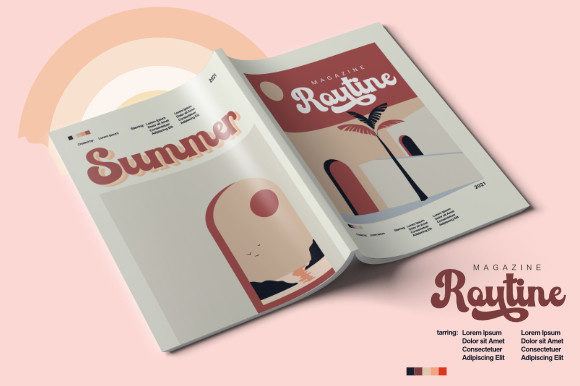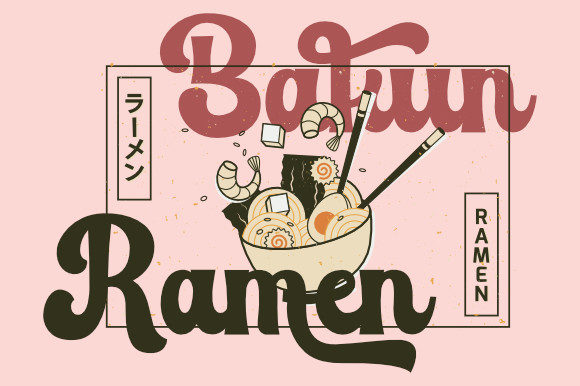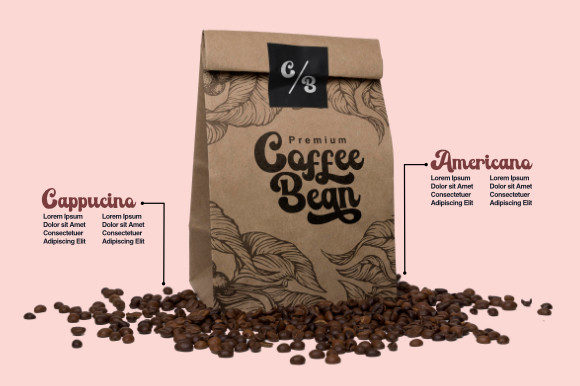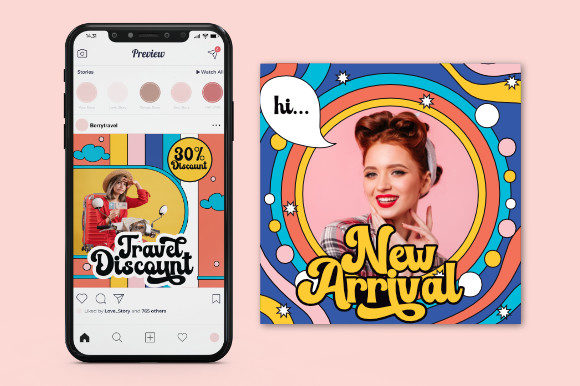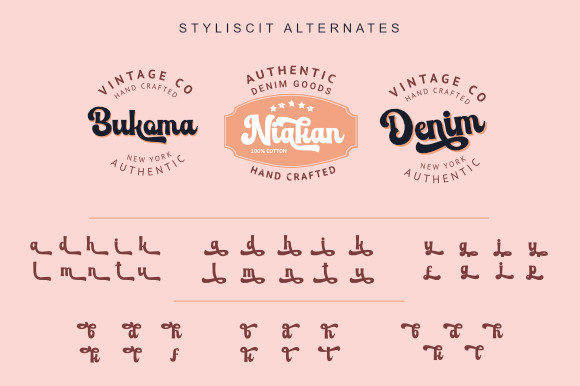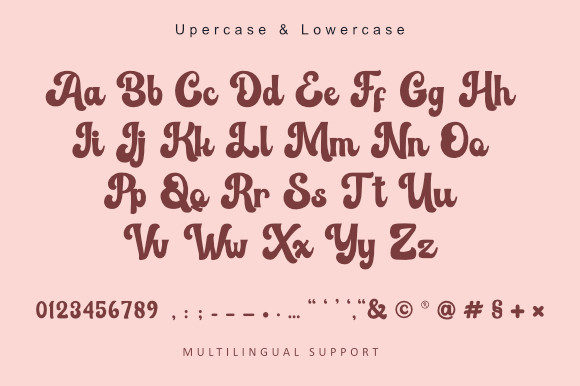
Balin Quiny Font: Elevate Your Designs with a Retro Touch
Are you looking for a font that can add a touch of nostalgia and sophistication to your designs? Look no further than the Balin Quiny font. This gorgeous and bold handwritten font is crafted to give your headlines and logotype projects a retro touch that’s sure to turn heads.
What Makes Balin Quiny Font So Special?
Balin Quiny is a strong, confident, and dynamic font that’s perfect for designers and crafters who want to add a unique touch to their work. With its bold and expressive letterforms, this font reads as highly legible and stylish, making it ideal for use in a variety of design projects, from logos and headlines to packaging and branding.
Key Features of Balin Quiny Font
- PUA Encoded: Balin Quiny is PUA encoded, which means you can access all of the amazing glyphs and ligatures with ease. This makes it simple to add extra flair to your designs and create unique and eye-catching text.
- Bold and Expressive: The bold and expressive letterforms of Balin Quiny make it perfect for use in headlines, titles, and other large-format text applications.
- Retro Touch: With its nostalgic character and classic feel, Balin Quiny is the perfect font for designers who want to add a touch of retro style to their work.
- Highly Legible: Despite its bold and expressive nature, Balin Quiny is highly legible, making it suitable for use in a wide range of design applications.
How to Use Balin Quiny Font in Your Designs
Balin Quiny is a versatile font that can be used in a variety of design applications, from print to digital. Here are a few ideas for how you can use this amazing font in your work:
- Logos and Branding: Use Balin Quiny to create bold and eye-catching logos and branding materials that are sure to stand out.
- Headlines and Titles: Add a touch of retro style to your headlines and titles with Balin Quiny, perfect for use in magazines, newspapers, and online publications.
- Packaging and Labeling: Use Balin Quiny to add a unique and eye-catching touch to your packaging and labeling designs.
- Digital Design: Balin Quiny can also be used in digital design applications, such as website headers, social media graphics, and more.
Tips for Getting the Most Out of Balin Quiny Font
- Experiment with Different Sizes: Balin Quiny looks great in a variety of sizes, so don’t be afraid to experiment and find the perfect size for your design.
- Play with Color: The bold and expressive nature of Balin Quiny makes it perfect for use with bright and bold colors.
- Mix and Match: Try pairing Balin Quiny with other fonts to create a unique and eye-catching look.